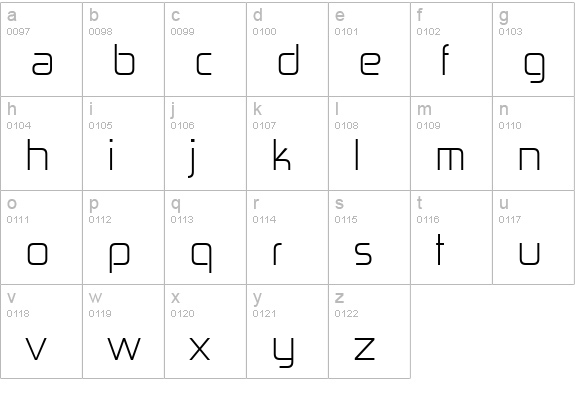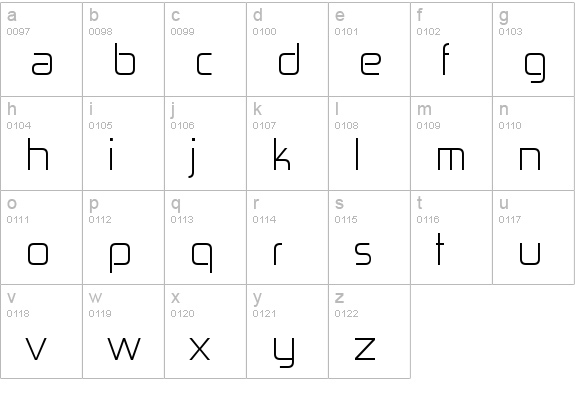
Zekton Lt Font Details
Zekton Lt is a sleek and modern font that exudes a sense of strength and sophistication. Its sharp lines and bold shapes make it perfect for projects that require a clean and impactful design. Whether you're working on a logo, poster, or website, Zekton Lt will make your text stand out with its commanding presence. The best part about Zekton Lt is that it is completely free to download at FontsMarket.com. This means you can access this high-quality font without having to worry about any additional costs. So go ahead and elevate your design projects with Zekton Lt - a versatile and striking font that will leave a lasting impression.